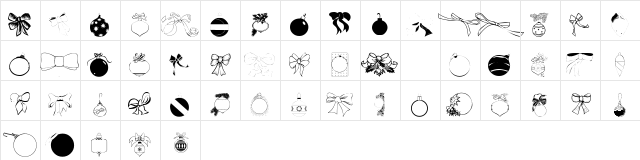
101! HollYDaY DecorationZ Regular
Design Context for 101! HollYDaY DecorationZ Typeface
101! HollYDaY DecorationZ is a composed and adaptable typeface that performs quietly and consistently across a wide range of design contexts.